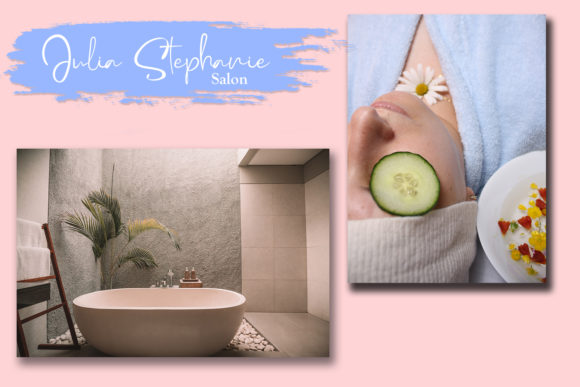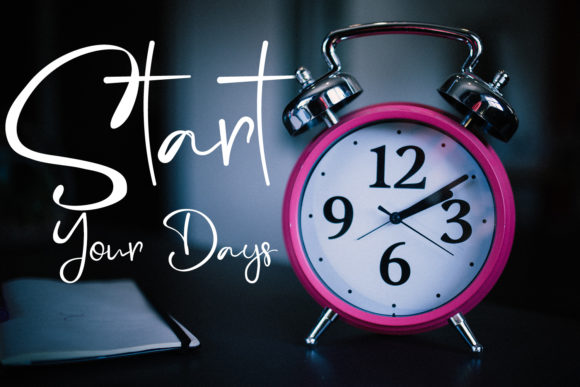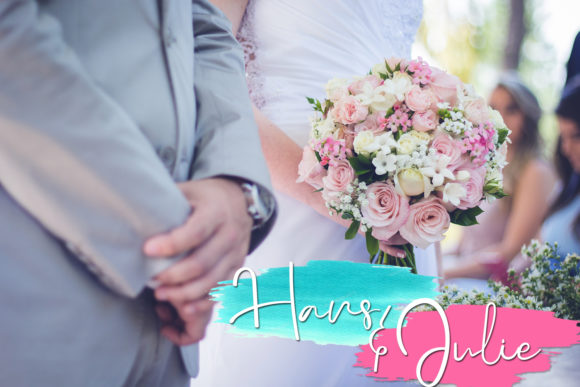
HomeScript FontsDanisya Font Script Fonts Danisya Font FacebookXPinterestWhatsApp Danisya Font Poster 2 Danisya Font Poster 3 Danisya Font Poster 4 About Danisya Font Danisya is a sweet and charming script font with an authentic vibe. Get inspired by its contemporary style. DOWNLOAD ON CREATIVE FABRICAThis font is sold and delivered by Creative Fabrica. Font Canyon may earn a commission if you buy through this link. People also explored Feel Good Font Realistic Mock-ups on Vintage Background Sour Candy Font Outdoor Font Mojito Font Hurry Loves Font Filmotype Lucky Writing Signature Font Caty Does Horror Font 351 0 TagsDanisya Font Previous articleSantosa FontNext articleRamberos Font LEAVE A REPLY Cancel reply Comment: Please enter your comment! Name:* Please enter your name here Email:* You have entered an incorrect email address! Please enter your email address here Website: Save my name, email, and website in this browser for the next time I comment. Personal Use Free Built Tilting Personal Use Free Read more about this font Vanchrome Personal Use Free Read more about this font Squealer Personal Use Free Read more about this font Madison Script Personal Use Free Read more about this font BLOG Best Fonts for T-Shirt Design – Top 2025 Picks In 2025, t-shirt design has become more than just fashion—it's a form of self-expression. Whether you're... Modern Sans-Serif Fonts That Brands Love in 2025 Elegant Wedding Invitation Fonts – Handwritten & Script Fonts To increase your work productivity, choose the most readable fonts.